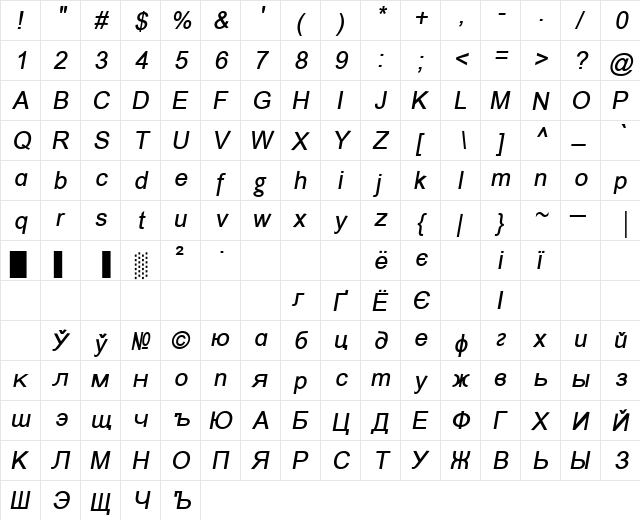
ER Univers KOI-8 Italic
Design Context for ER Univers KOI-8 Typeface
ER Univers KOI-8 takes a measured approach to typography — its balanced proportions and neutral character make it a reliable workhorse for both digital and print work. The slanted form adds forward momentum and visual energy.
Pro Tip: Try ER Univers KOI-8 for annotation and caption copy alongside an upright companion — the contrast in angle creates a dynamic but ordered typographic system.